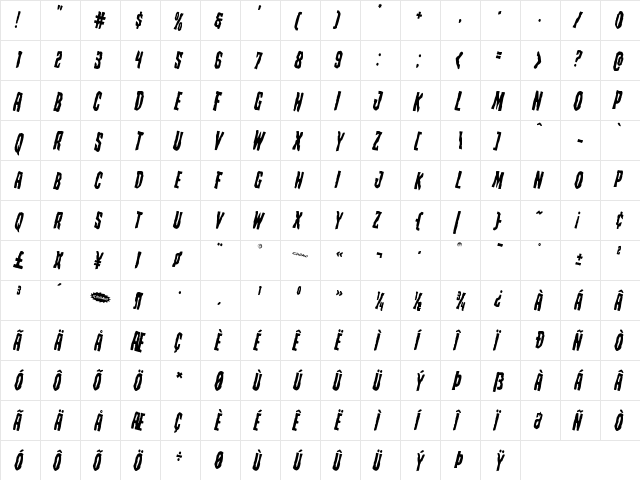
Creepy Crawlers Rotated Regular
Design Context for Creepy Crawlers Rotated Typeface
Creepy Crawlers Rotated leans into the macabre with letterforms designed to disturb and intrigue in equal measure.
Perfect for anything that needs to unsettle — game titles, horror branding, and macabre invitations.
Font Pairing: Pair with a clean neutral sans-serif for body copy to let Creepy Crawlers Rotated's character lead without overwhelming the composition.
Pro Tip: Use Creepy Crawlers Rotated at larger display sizes for maximum impact. Consider generous tracking to let the disturbing character of each letterform breathe.